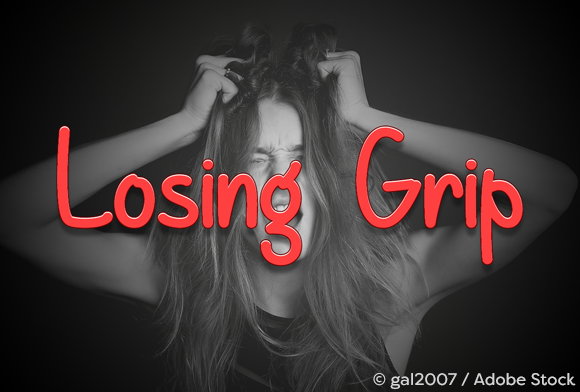
HomeScript FontsLosing Grip Font Script Fonts Losing Grip Font FacebookXPinterestWhatsApp About Losing Grip Font Losing Grip is a simple, yet stunning handwriting font that is great for adding a bit of style to your projects! DOWNLOAD ON CREATIVE FABRICAThis font is sold and delivered by Creative Fabrica. Font Canyon may earn a commission if you buy through this link. People also explored Nitrous Bullina Font Triunfo Family Belittong Font Farm Font Ornaments Cute Font Christina Allie Font Mildlight Font Stylish Font 266 0 TagsLosing Grip Font Previous articleHeart Warming FontNext articleLemon Cookies Font LEAVE A REPLY Cancel reply Comment: Please enter your comment! Name:* Please enter your name here Email:* You have entered an incorrect email address! Please enter your email address here Website: Save my name, email, and website in this browser for the next time I comment. Personal Use Free Rocketto Personal Use Free Read more about this font Sweety Blue Personal Use Free Read more about this font Alphakind Personal Use Free Read more about this font Penelope Brush Script Font Personal Use Free Read more about this font BLOG Top 10 Handwritten Fonts That Elevate Your Designs Top 10 Handwritten Fonts That Will Elevate Your Designs Handwritten fonts bring a warm, personal touch to every creative project. Whether you're designing logos, invitations,... The 10 Best Handwriting Fonts to Add Personality to Your Designs Fonts That Capture the Spirit of New York City To increase your work productivity, choose the most readable fonts.